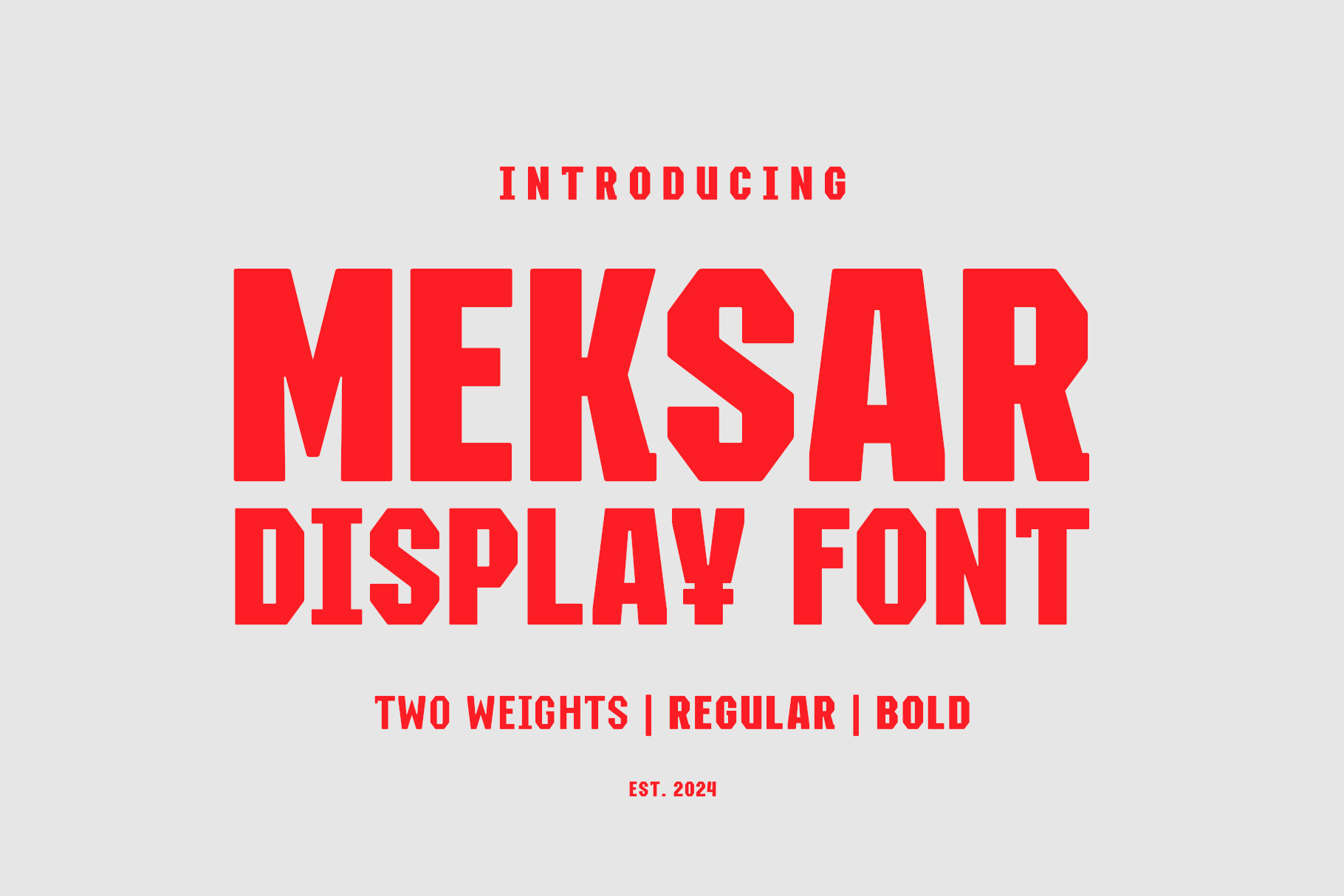
Meksar | Display Font
Meksar is a machine-printed display font with distinct shapes. There are two weights: Regular and Bold. Contains 237 glyphs. The font attracts the attention of recipients with its academic character. The Meksar font is ideal for graphic designs with an intriguing style. The font will work well in poster design, branding, logo design and clothing branding.